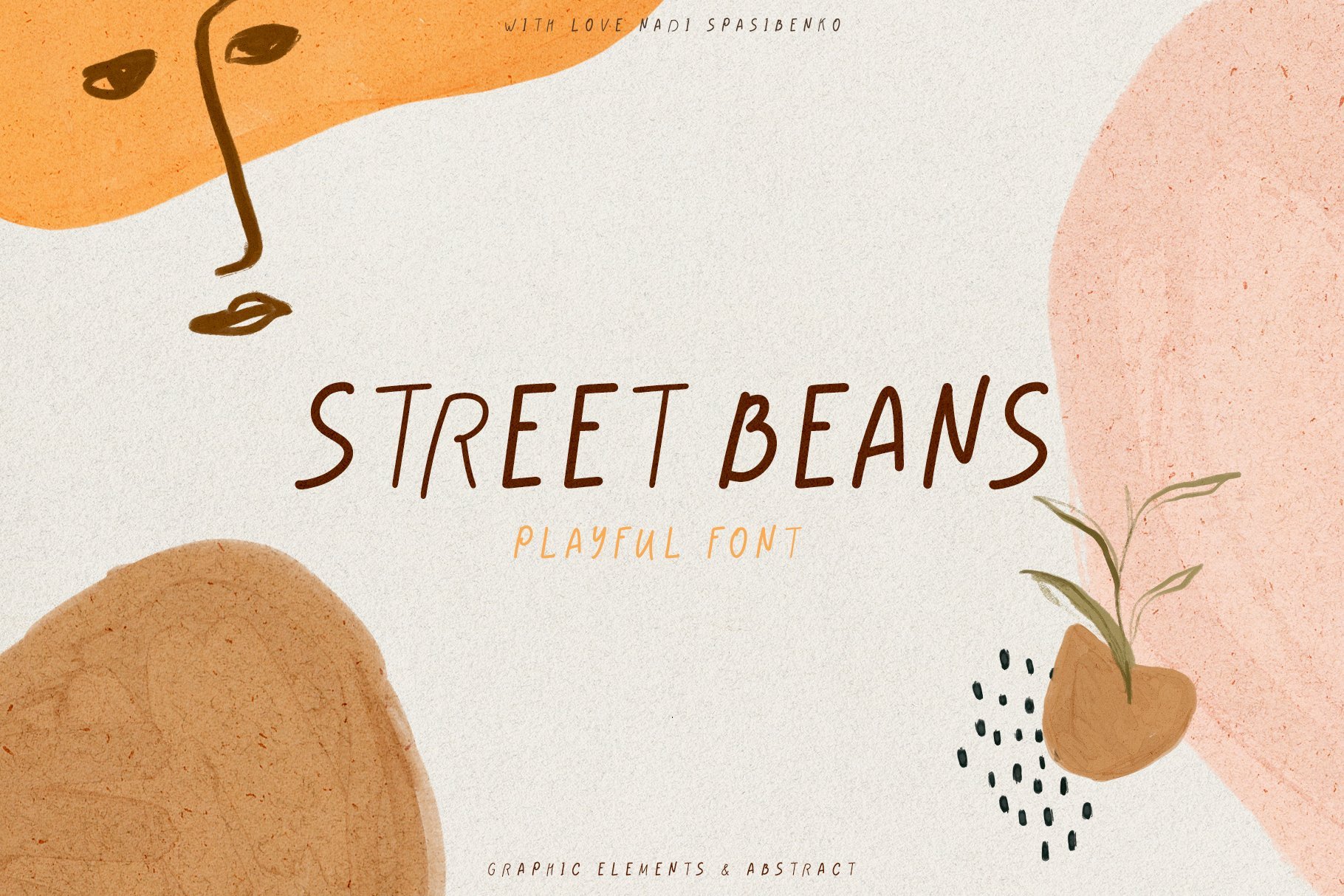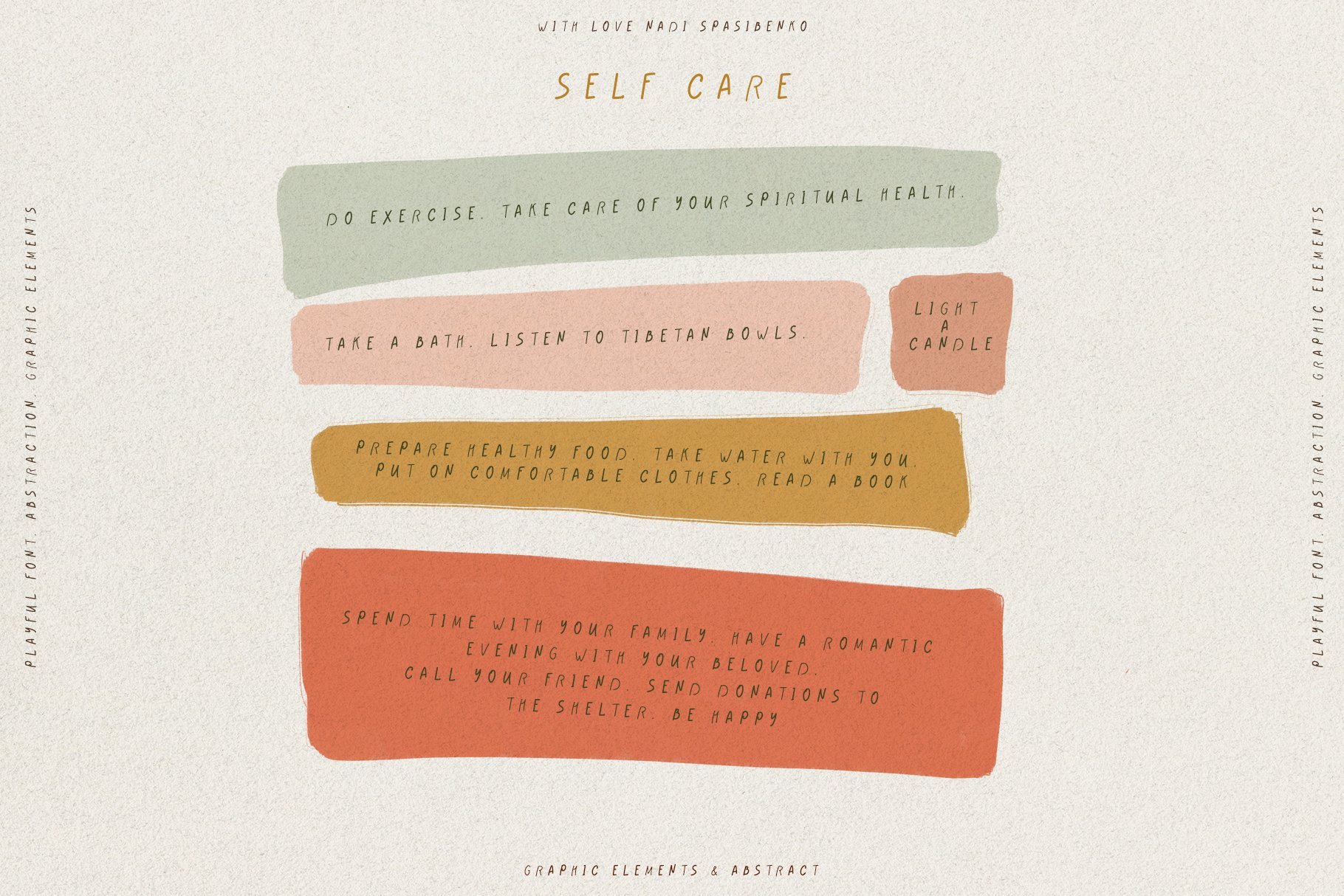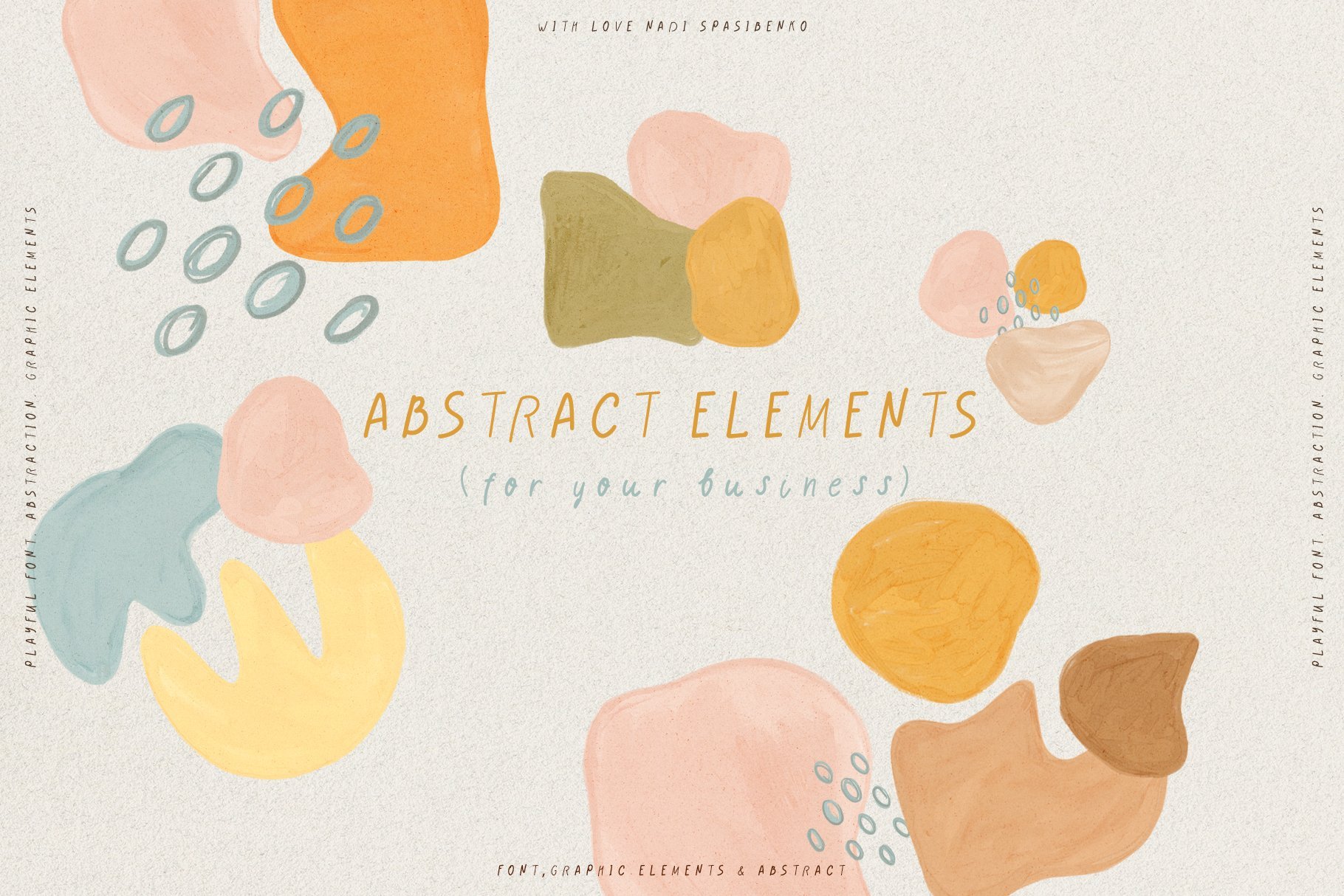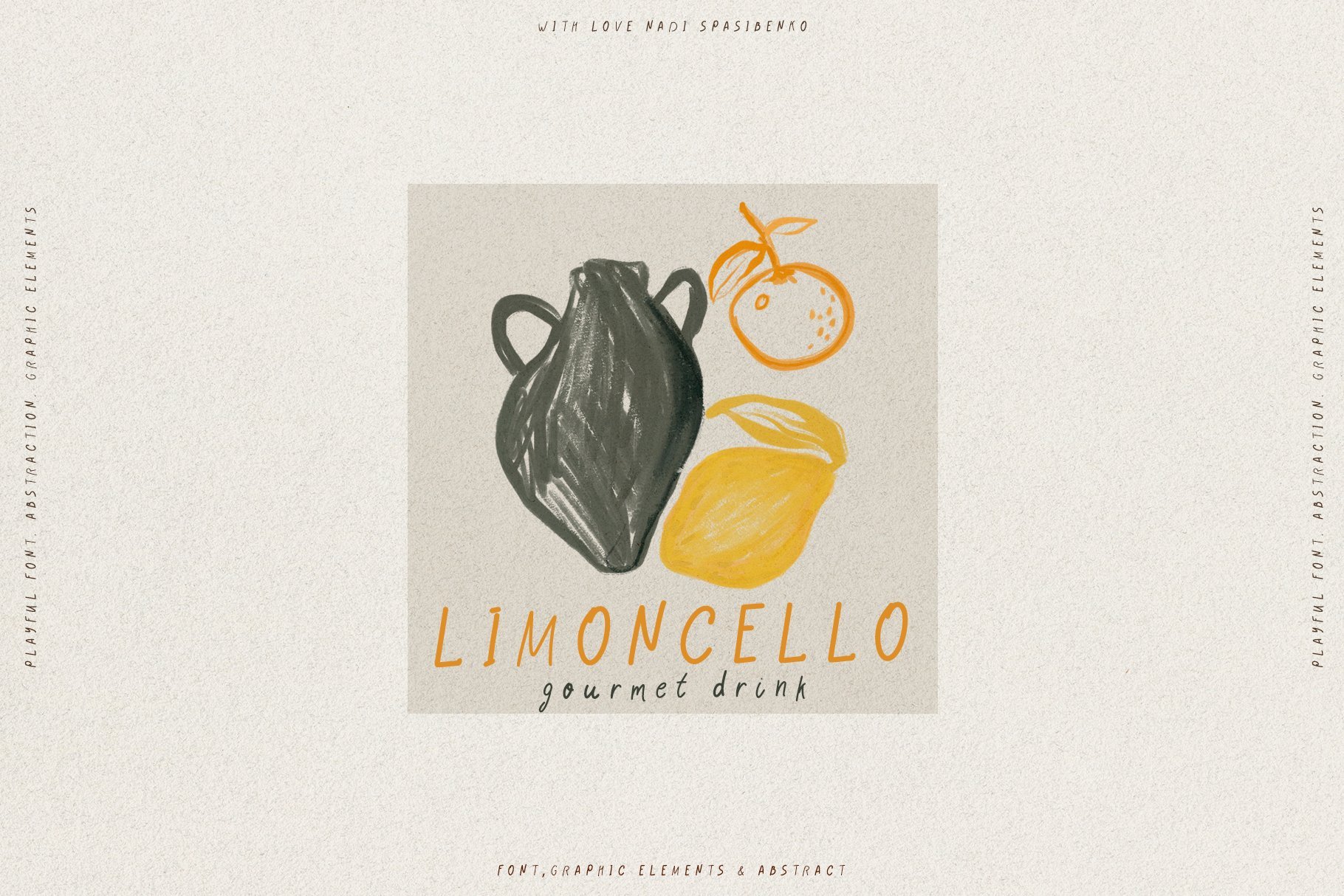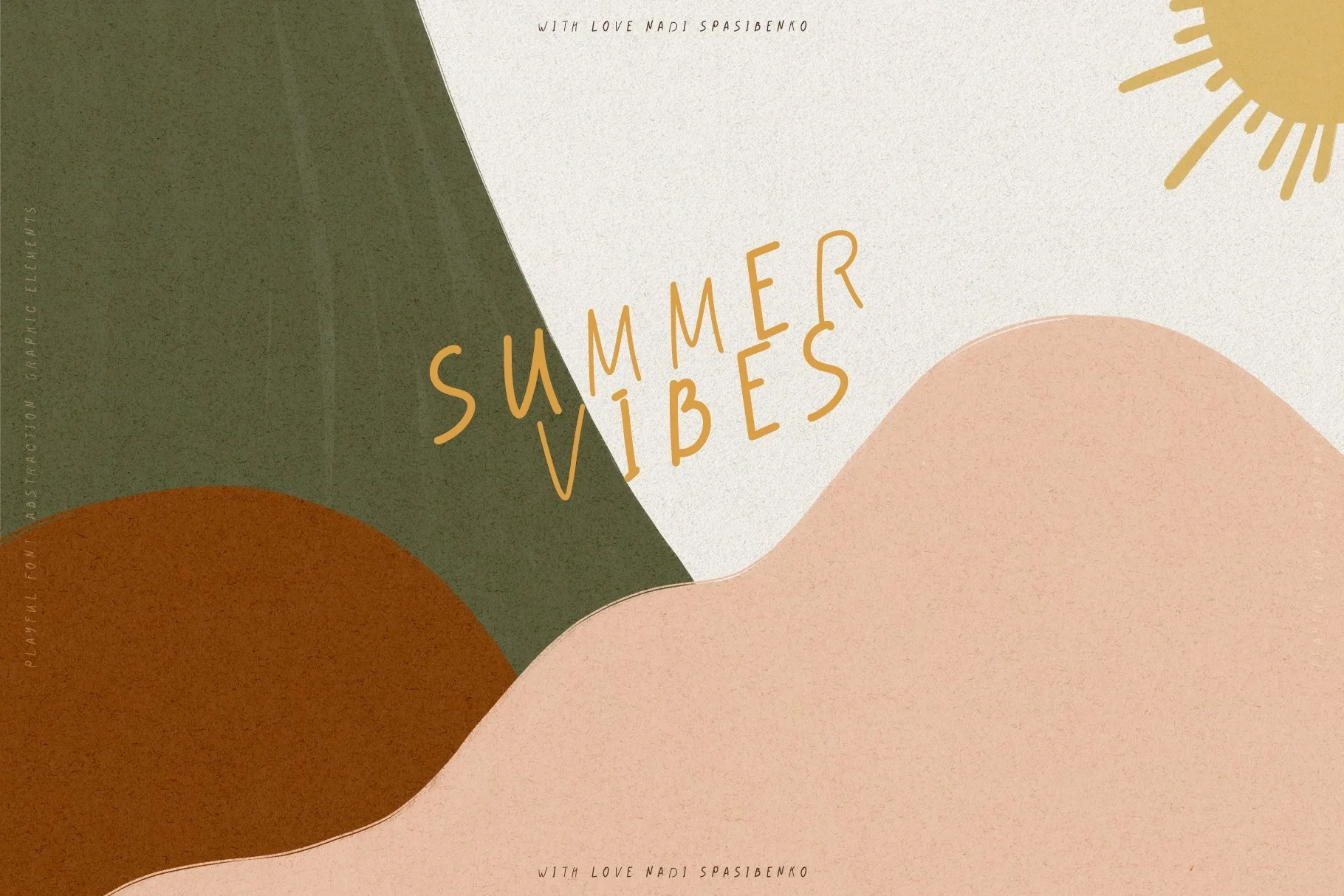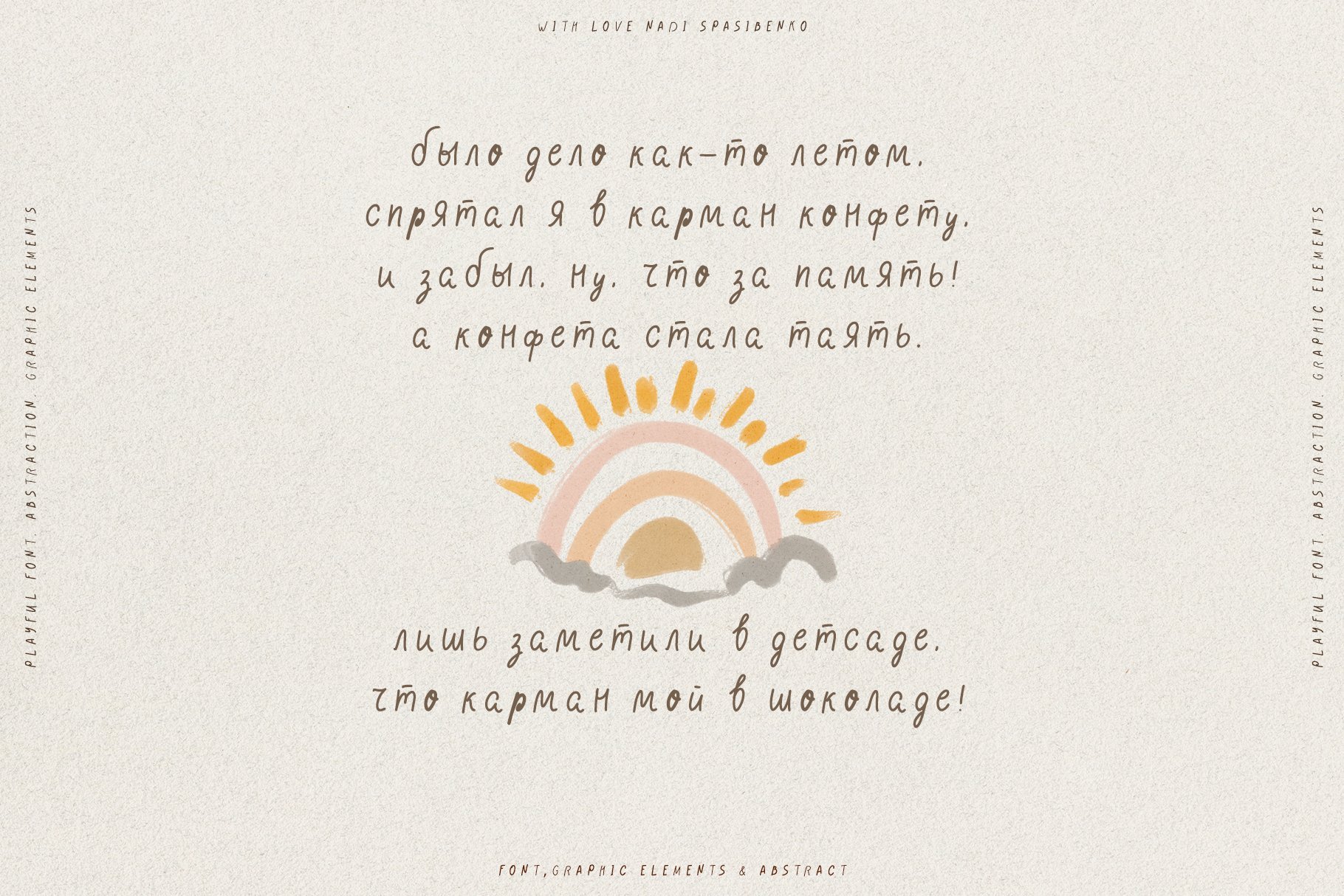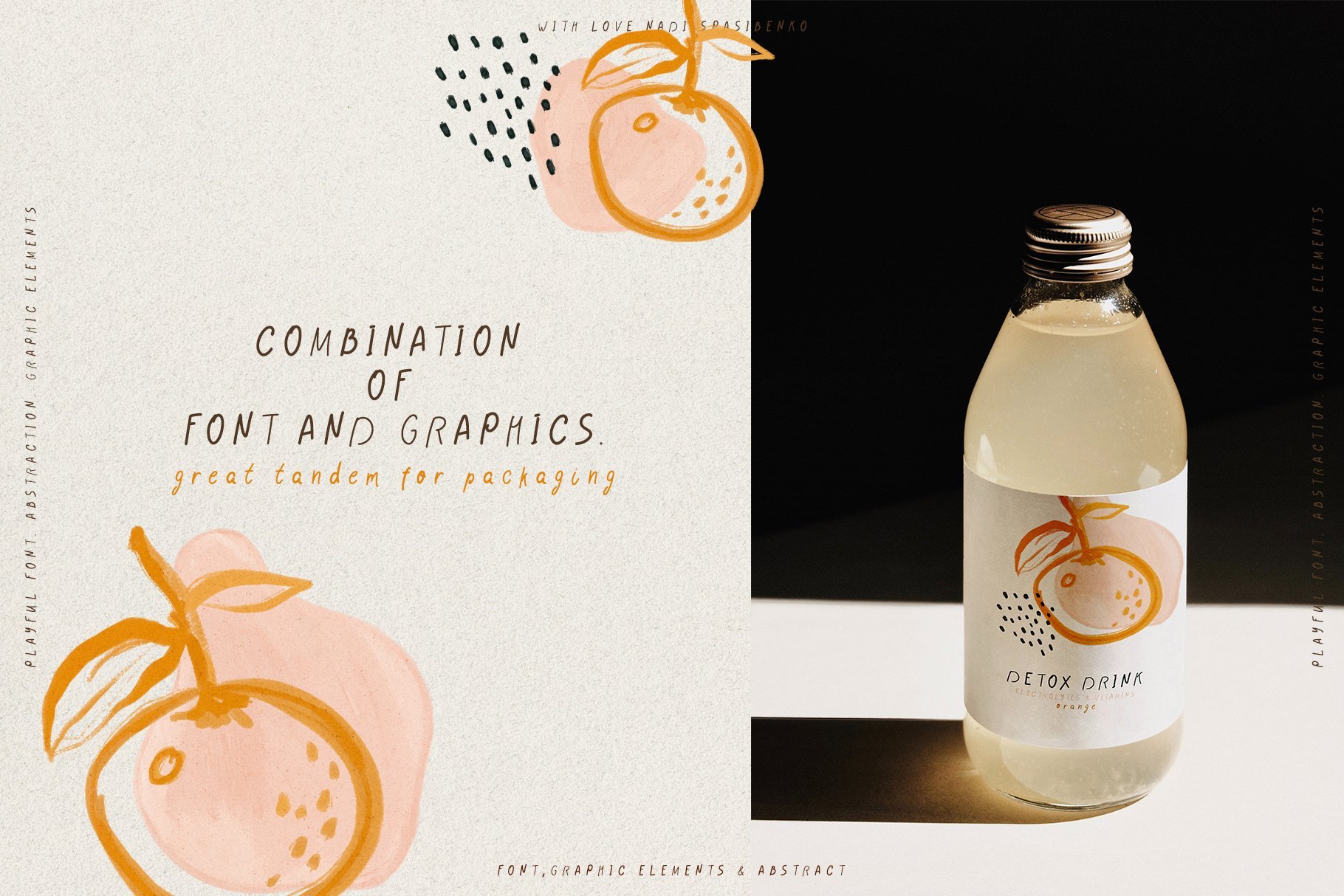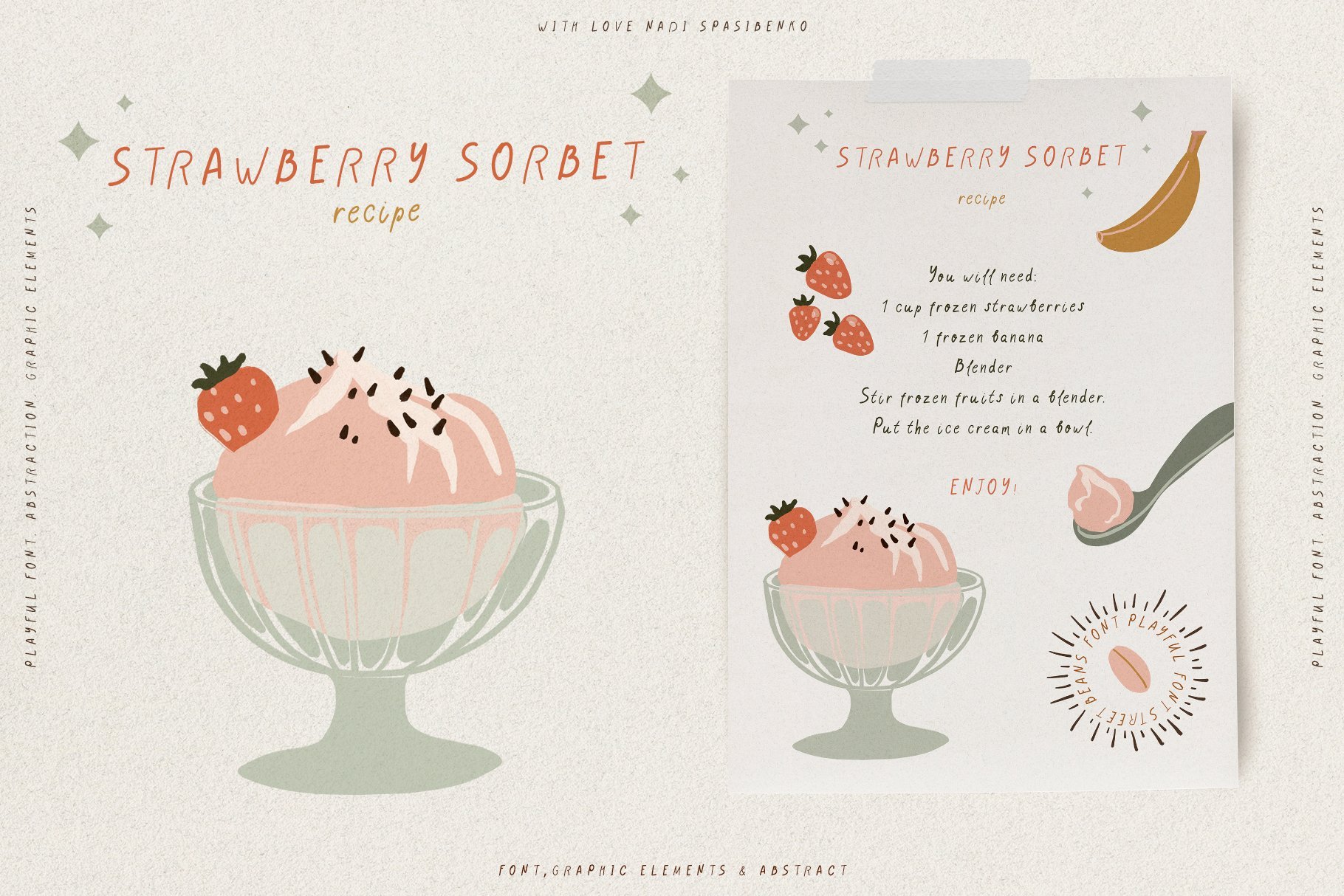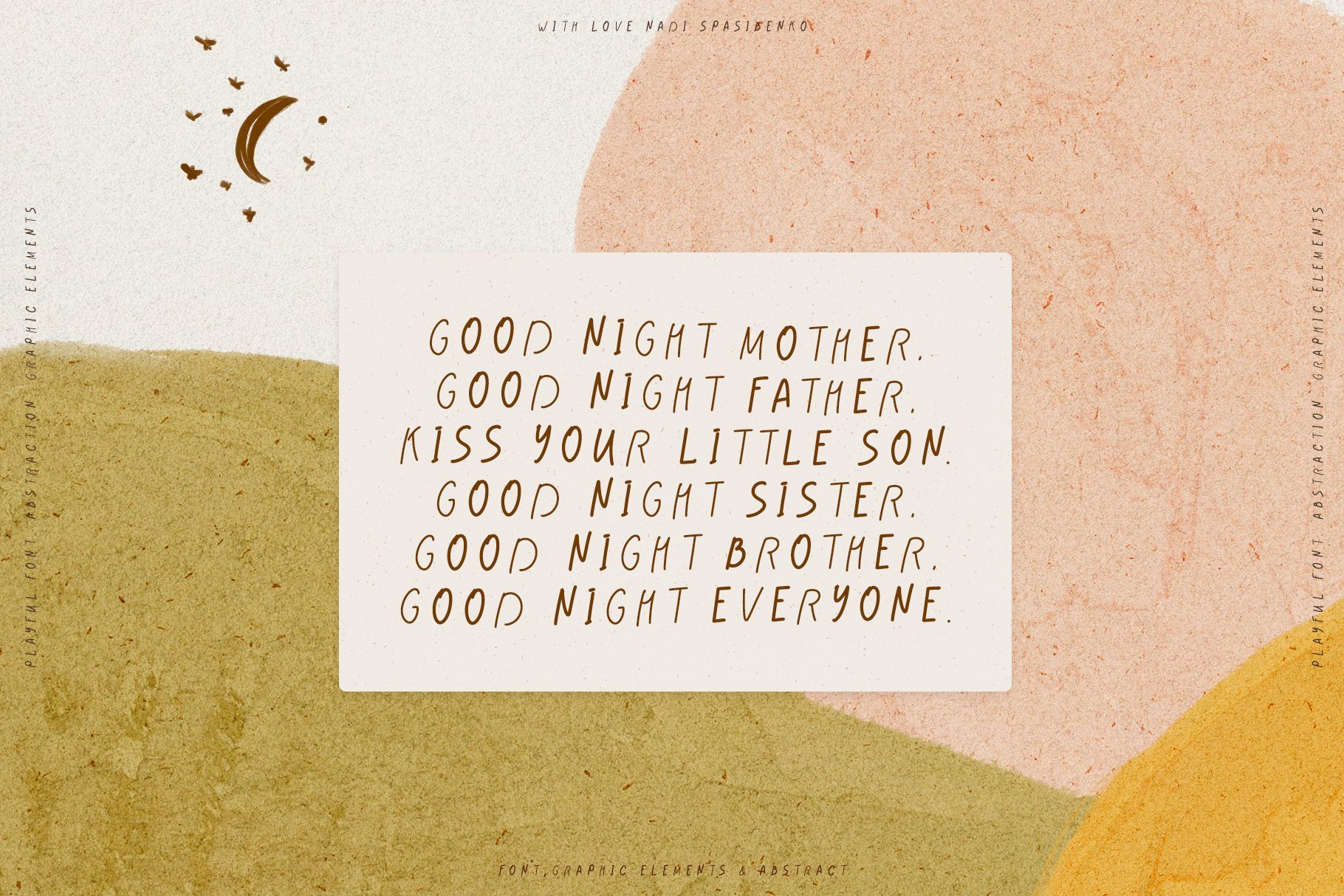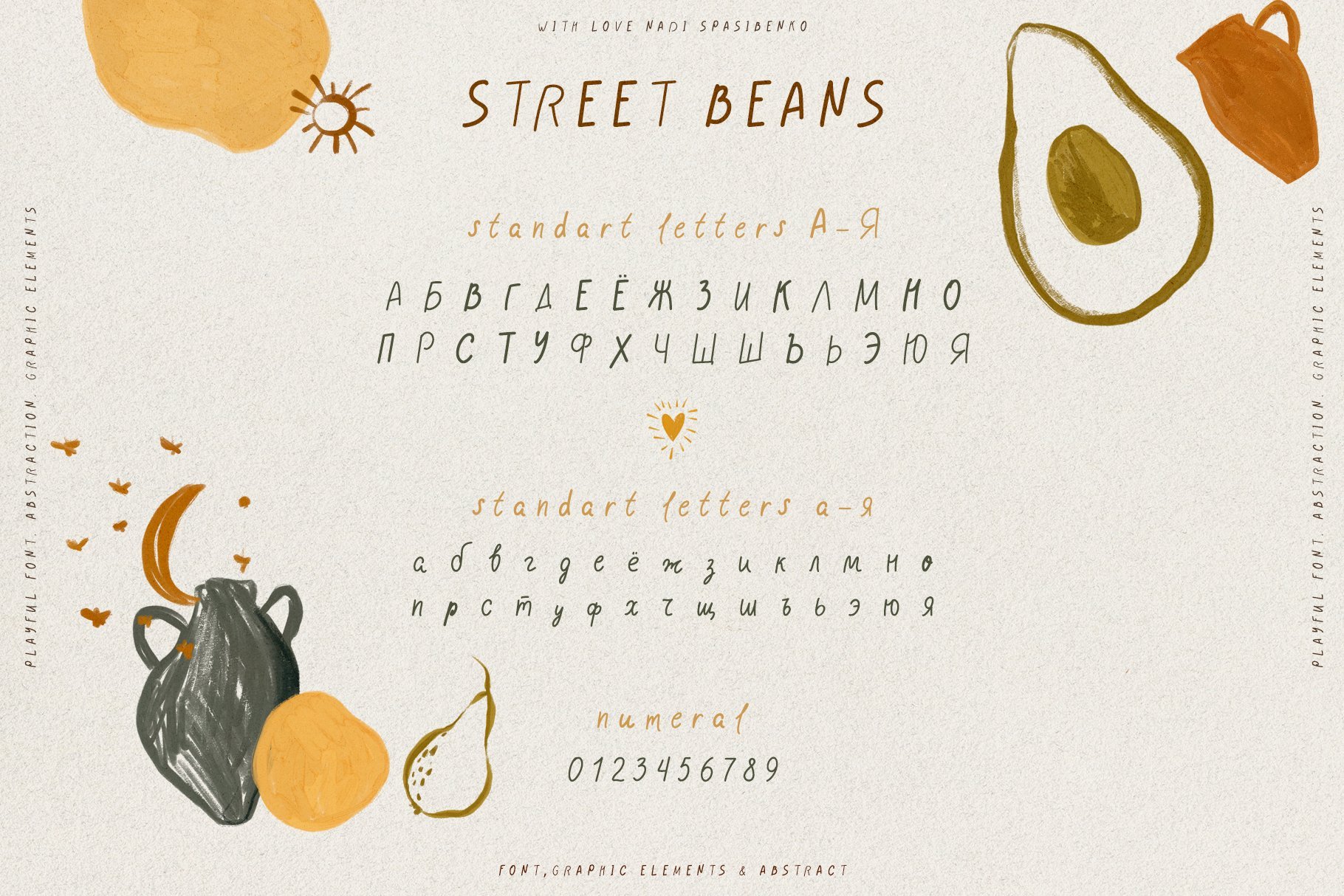
Street Beans: The Perfect Font for Trendy and Vintage Projects
Introducing Street Beans & Fun Fonts & Extras! The latest font creation to emerge from the talented designers at Artcoast is loaded with all the playful fun you need. From full alphabet letters and abstract shapes to powerful compositions, this set has it all!
This unique font design was created with both form and function in mind. And what better way to express your creative self than with a font that you can call your own? Whether you’re looking for something trendy or more of a vintage vibe, Street Beans has a look that’s sure to fit any project.
The set includes a comprehensive library of extra elements such as curves, banners and circles, allowing designers to extend their reach beyond mere text. Make beautiful posters, logos and illustrations by taking advantage of the vast array of extras – no drawing skills required! With infinite possibilities in terms of combinations, there's truly something for everyone.